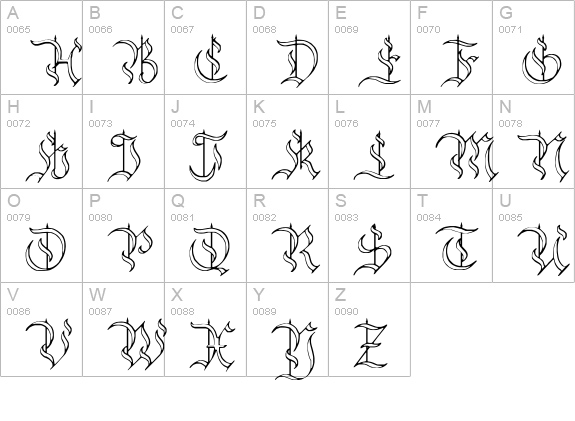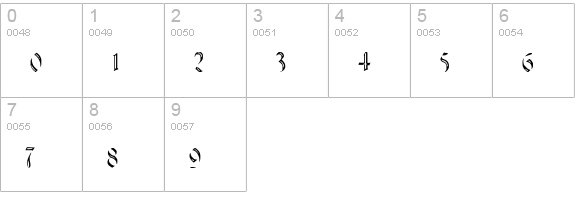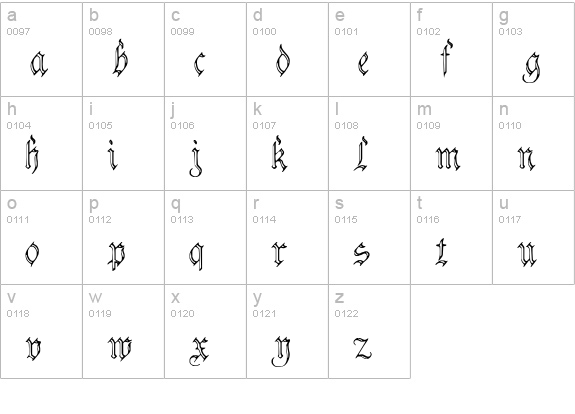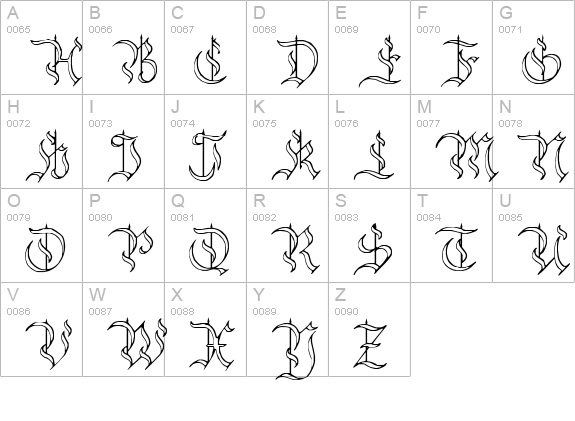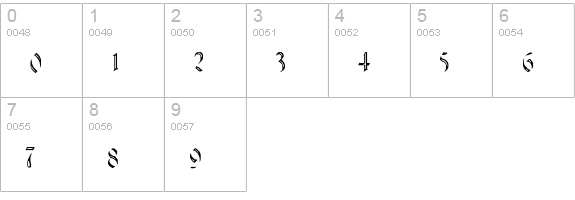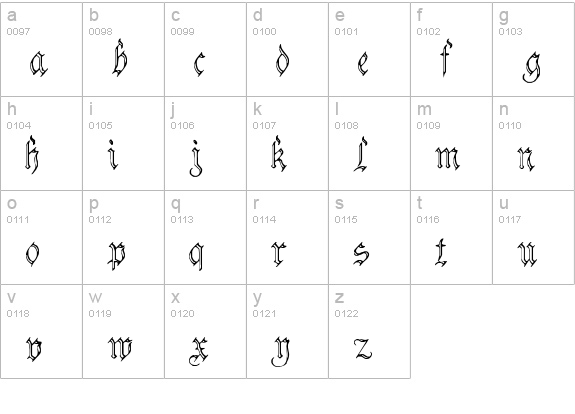
Charterwell No4 Font Details
Introducing Charterwell No4, a versatile and stylish font that exudes elegance and sophistication. With its classic yet contemporary design, this font is perfect for a wide range of projects, from branding to editorial design. The clean lines and subtle curves of Charterwell No4 make it a timeless choice for any design need. The best part? Charterwell No4 is available for free download at FontsMarket.com. You can easily access this stunning font and use it in your projects without any cost. Whether you're working on a personal project or a professional assignment, Charterwell No4 is sure to elevate your design and make a lasting impression. Download Charterwell No4 today and add a touch of charm and refinement to your creations. Don't miss out on this amazing opportunity to enhance your design arsenal with a high-quality font that is both elegant and free to use.